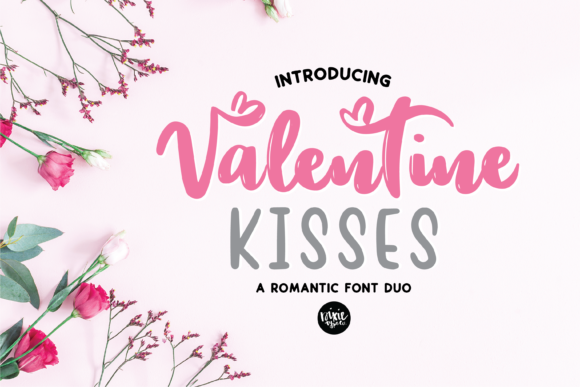
Behold, Valentine Kisses, a font that embodies the essence of love, romance, and heartfelt connections. This script font, crafted with meticulous care by blushfontco, is not just a collection of letters; it's a symphony of emotions waiting to be expressed.
Journey into a world where every word dances with grace and elegance, where your messages bloom with affection and tenderness. Valentine Kisses is more than just a font; it's an invitation to let your heart speak through your designs.
Picture a wedding invitation adorned with the delicate strokes of Valentine Kisses, each letter carrying the promise of a lifetime of togetherness. Imagine stationary art that whispers sweet nothings, capturing the essence of cherished memories. Envision social media posts that radiate charm and personality, thanks to the captivating allure of Valentine Kisses.
With Valentine Kisses, you'll discover endless creative possibilities. Its versatility shines through, whether you're designing logos that exude sophistication or creating marketing materials that ignite passion. Unleash your imagination and let this font guide you toward designs that resonate with your audience.
But there's more to Valentine Kisses than its aesthetic beauty. It's a font that evokes emotions, igniting sparks of joy, warmth, and affection in the hearts of those who encounter it. Your designs will become tangible expressions of love, leaving a lasting impression that lingers long after the words are read.
So why settle for ordinary fonts when you can embrace the captivating charm of Valentine Kisses? Let your designs radiate romance, let your words dance with passion, and let your creativity soar to new heights. Experience the transformative power of Valentine Kisses today and embark on a journey where every design tells a love story.